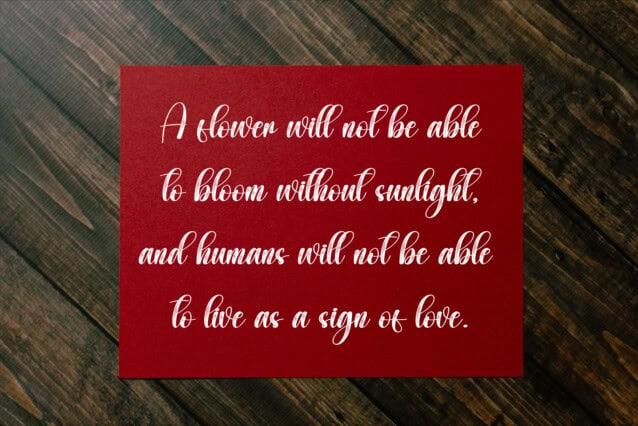
Simplicity Script Font
Simplicity Script Font is a stylish and incredibly elegant script font. It looks stunning on wedding invitations, thank you cards, quotes, greeting cards, logos, business cards and every other design which needs a handwritten touch.